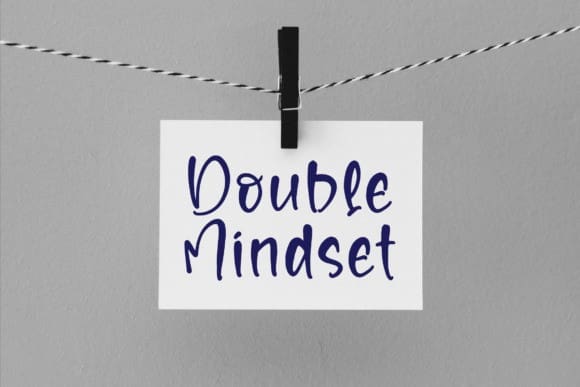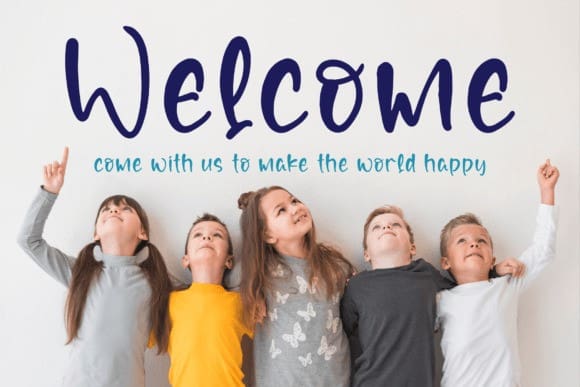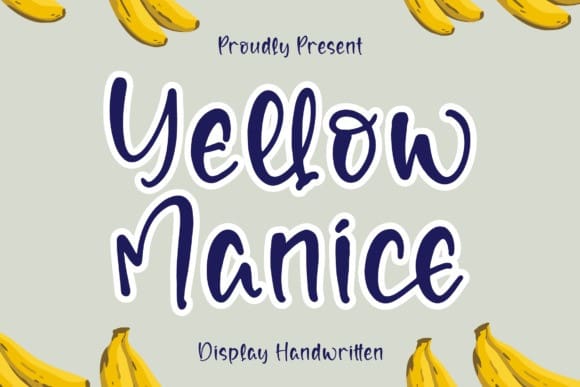
Yellow Manice Font
Yellow Manice is the perfect typeface for creating lovely desings. Add it to your stickers, labels, packaging, or cards, and you will definitely love the end result!